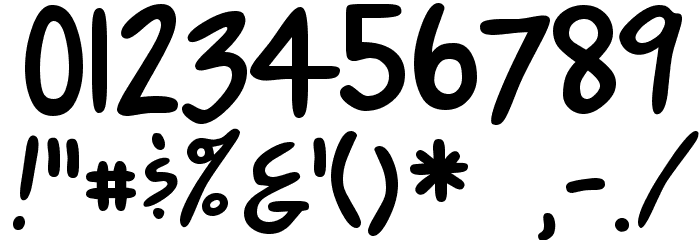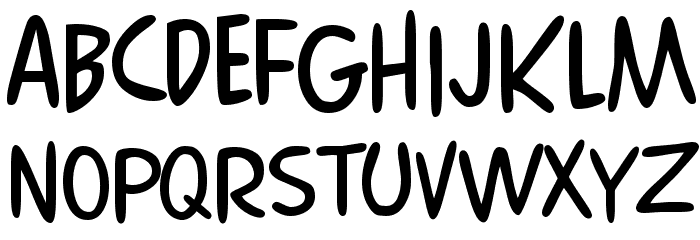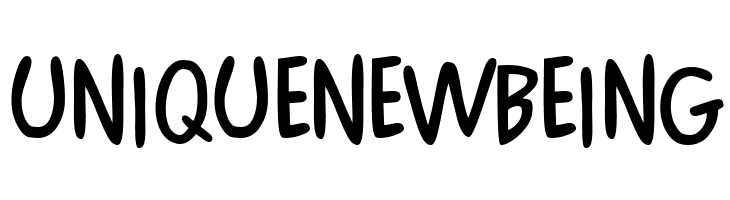
Comics Regular Font
Comics Regular Description
This playful and energetic font features bold, rounded characters with a hand-drawn aesthetic. The uppercase letters are slightly irregular, giving them a whimsical and informal appearance. The lowercase letters maintain a consistent style, complementing the uppercase with their smooth curves and playful loops. Numbers and special characters follow the same lively design, making them suitable for creative and fun projects. The font's overall style is reminiscent of comic book lettering, with a friendly and approachable vibe.
| Overall Style | Playful, Comic |
| Proposed Projects | Ideal for comic books, children's books, playful branding, posters, and invitations. |